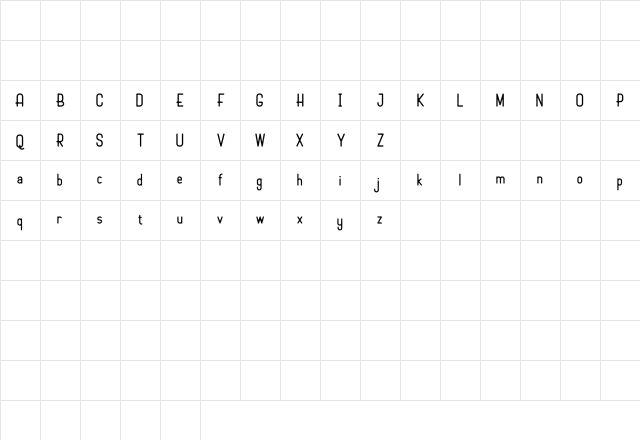
Complete Marko Rough Demo Regular glyph index. Displaying only characters natively supported by Marko Rough Demo Regular font.
Marko Rough Demo embraces imperfection - its rough, textured character adds raw authenticity to designs that want to feel lived-in and unconventional.
Pro Tip: Use Marko Rough Demo at larger sizes where the texture and irregularity of each letterform can be clearly seen - it loses its character at small sizes.